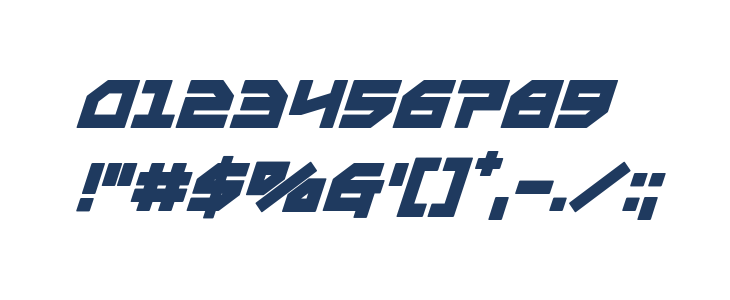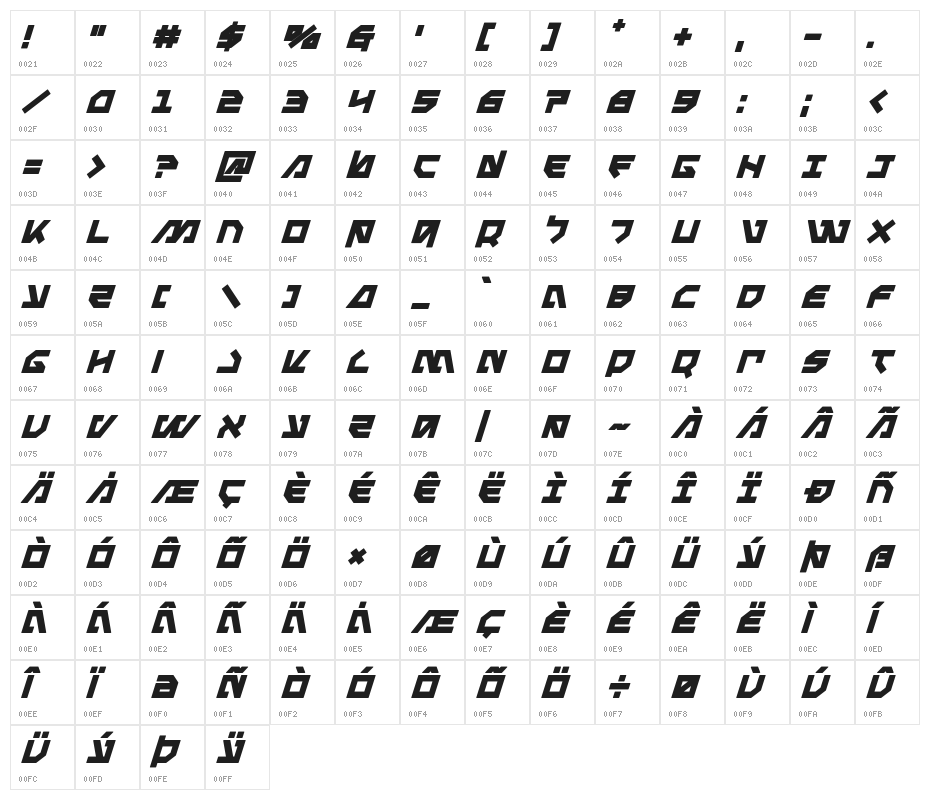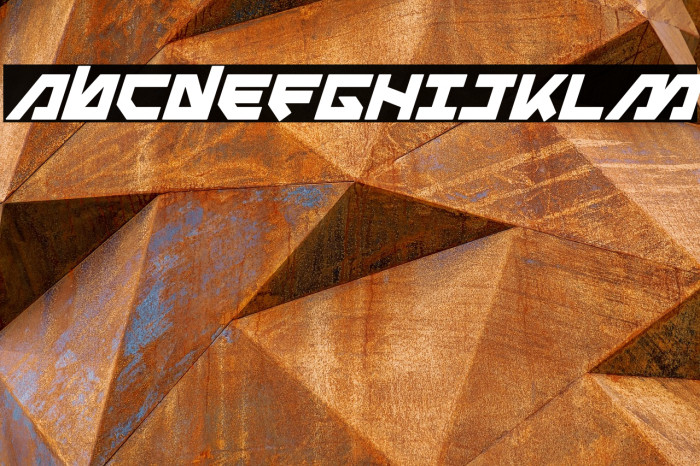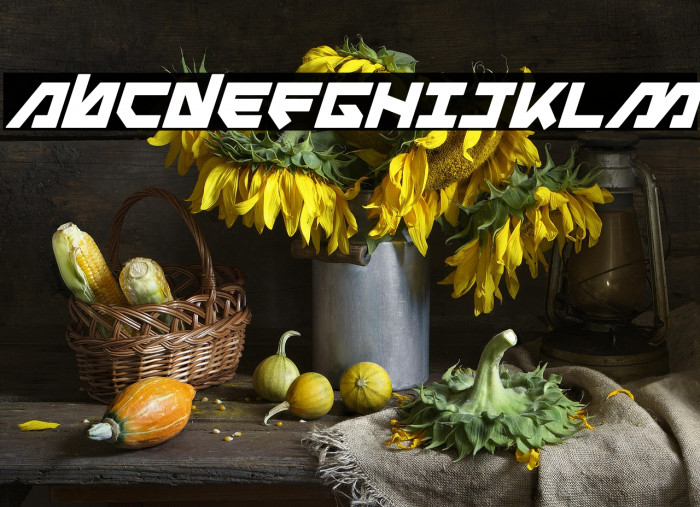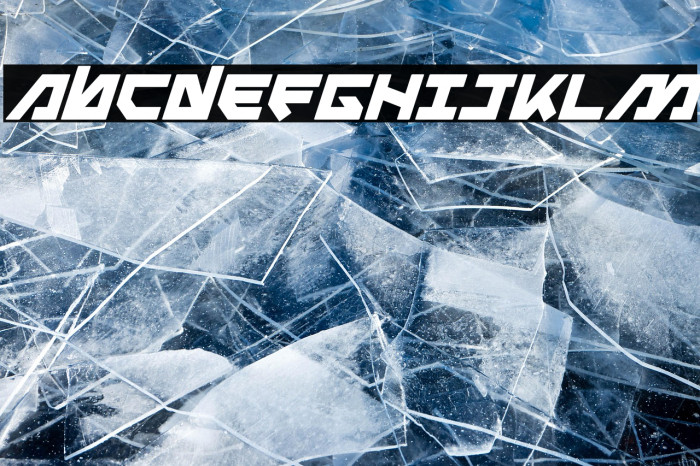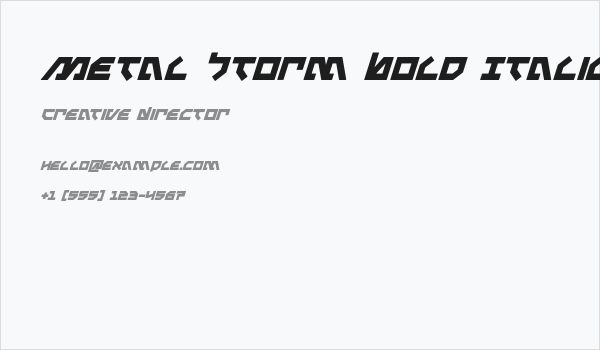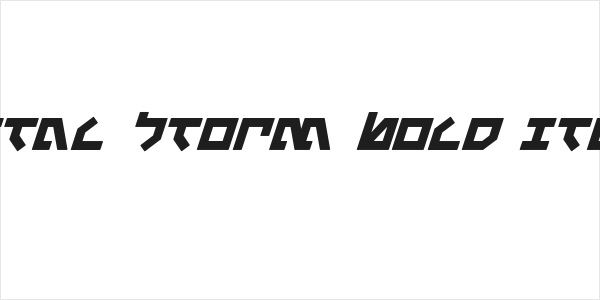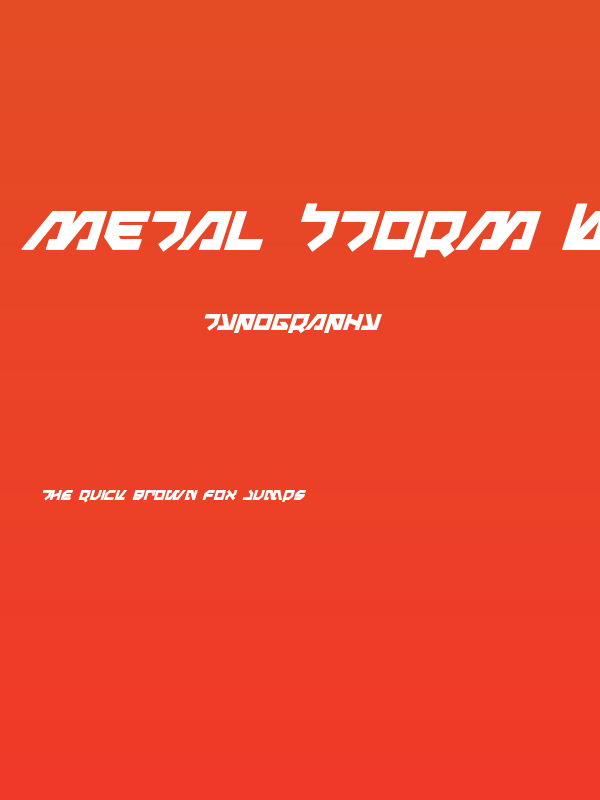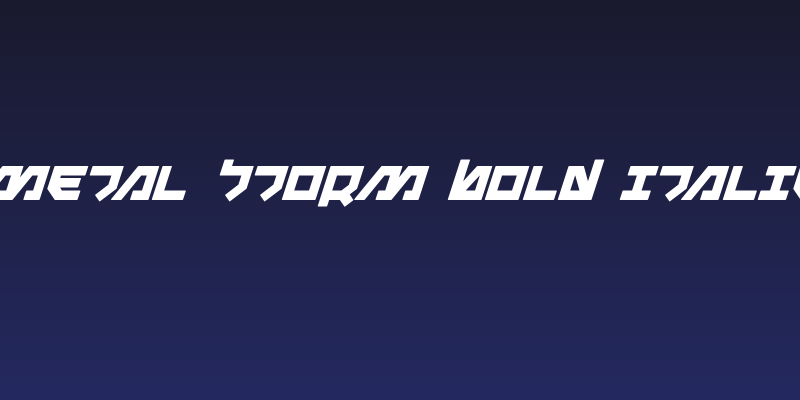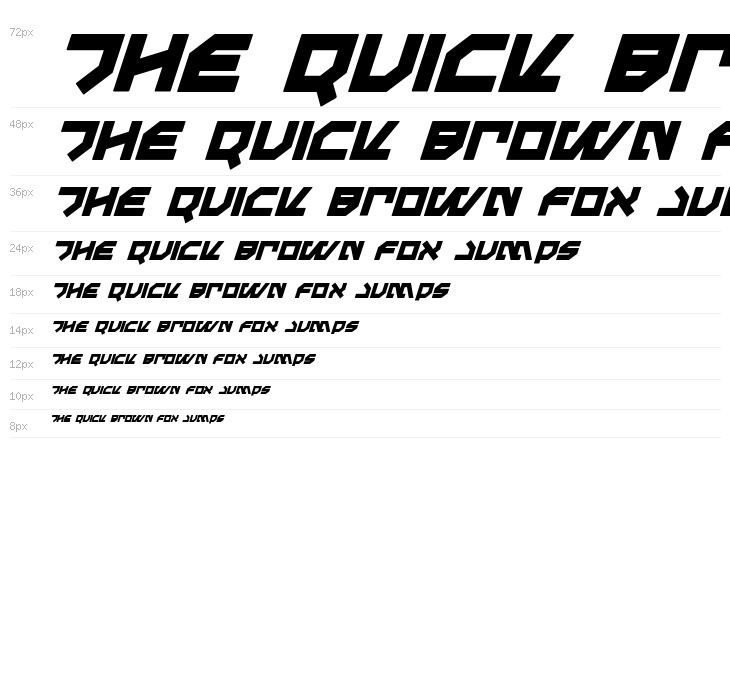
Metal Storm Bold Italic Font
Metal Storm Bold Italic Description
This font features a bold and italicized style with a futuristic and angular design. The characters are sharply cut with a distinct geometric influence, giving them a dynamic and aggressive appearance. The uppercase and lowercase letters maintain a consistent style, with the lowercase slightly smaller but equally bold. Numbers and special characters follow the same angular and bold design, ensuring uniformity across all glyphs. The font's strong visual impact makes it suitable for attention-grabbing headlines or branding that requires a modern and edgy look.
| Proposed Projects | Ideal for sci-fi themed projects, video game titles, tech branding, and dynamic poster designs. |